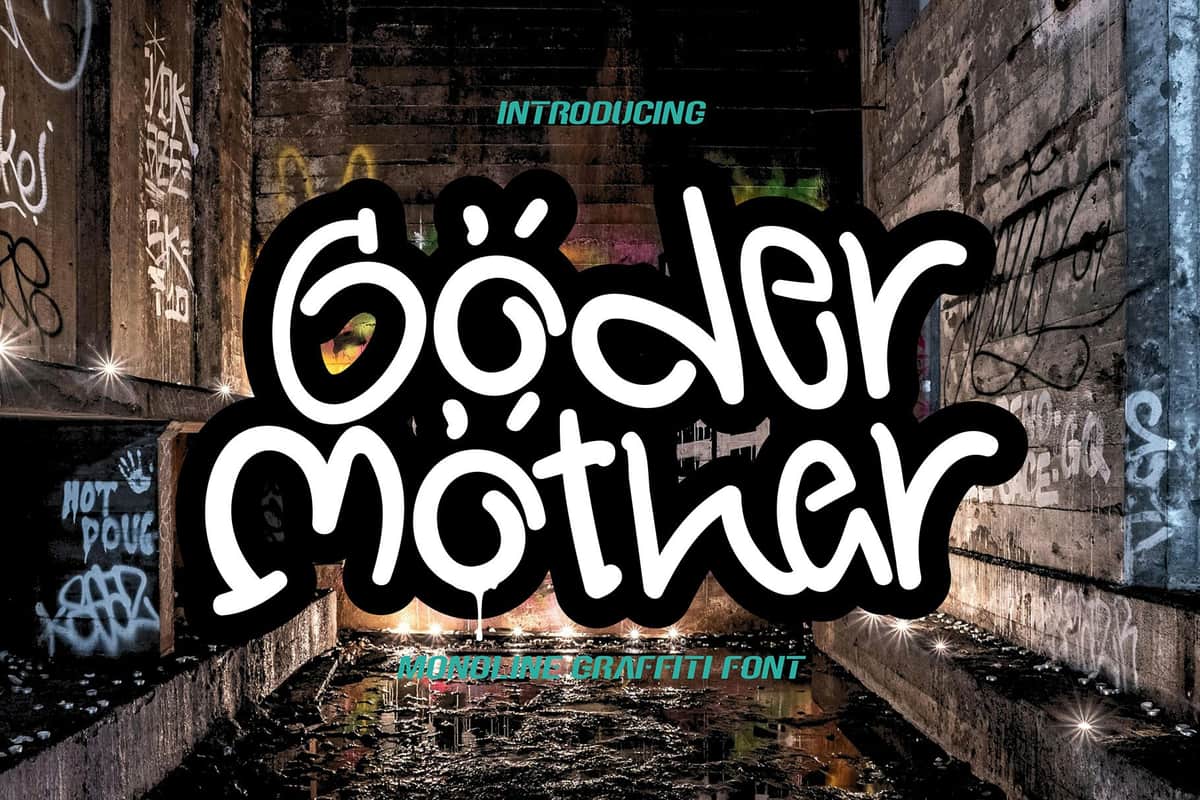
Goder Mother
Step into the vibrant world of street art with Goder Mother – the monoline graffiti font that embodies the spirit of urban creativity and rebellion. More than just a font, Goder Mother is a bold statement of style and attitude, perfect for bringing an authentic street vibe to your designs.